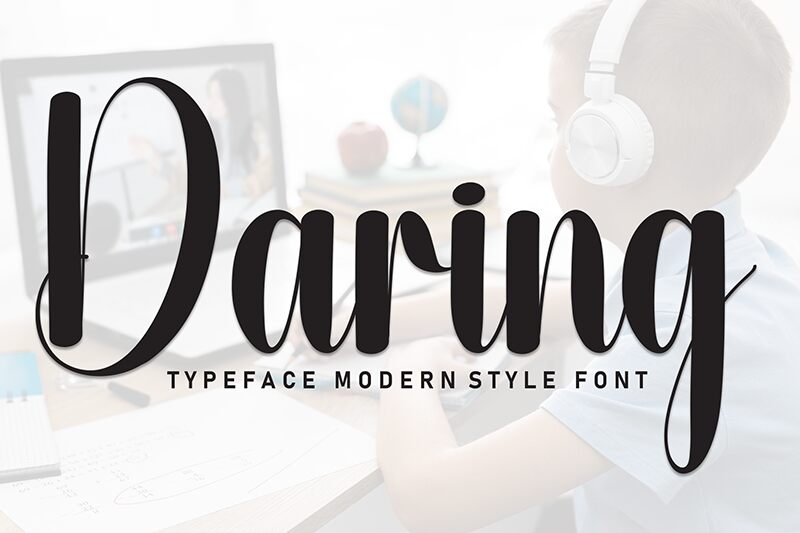
Daring
Daring font is a free handwritten font designed by Andi Moz. The elegant flowing curves and expressive loops join forces to put together a modern script with a dramatic presence. It demands attention making it a perfect choice for signature text, branding identity, packaging design, and other similar applications.
You are free to use the daring fonts in notebooks, letterheads, invitations, labels of clothes and accessories brands, posters, greeting cards especially those dealing with special events (wedding invitations) or holidays (Eid Mubarak). Another great use would be adding an edge when presenting signatures in official documents.